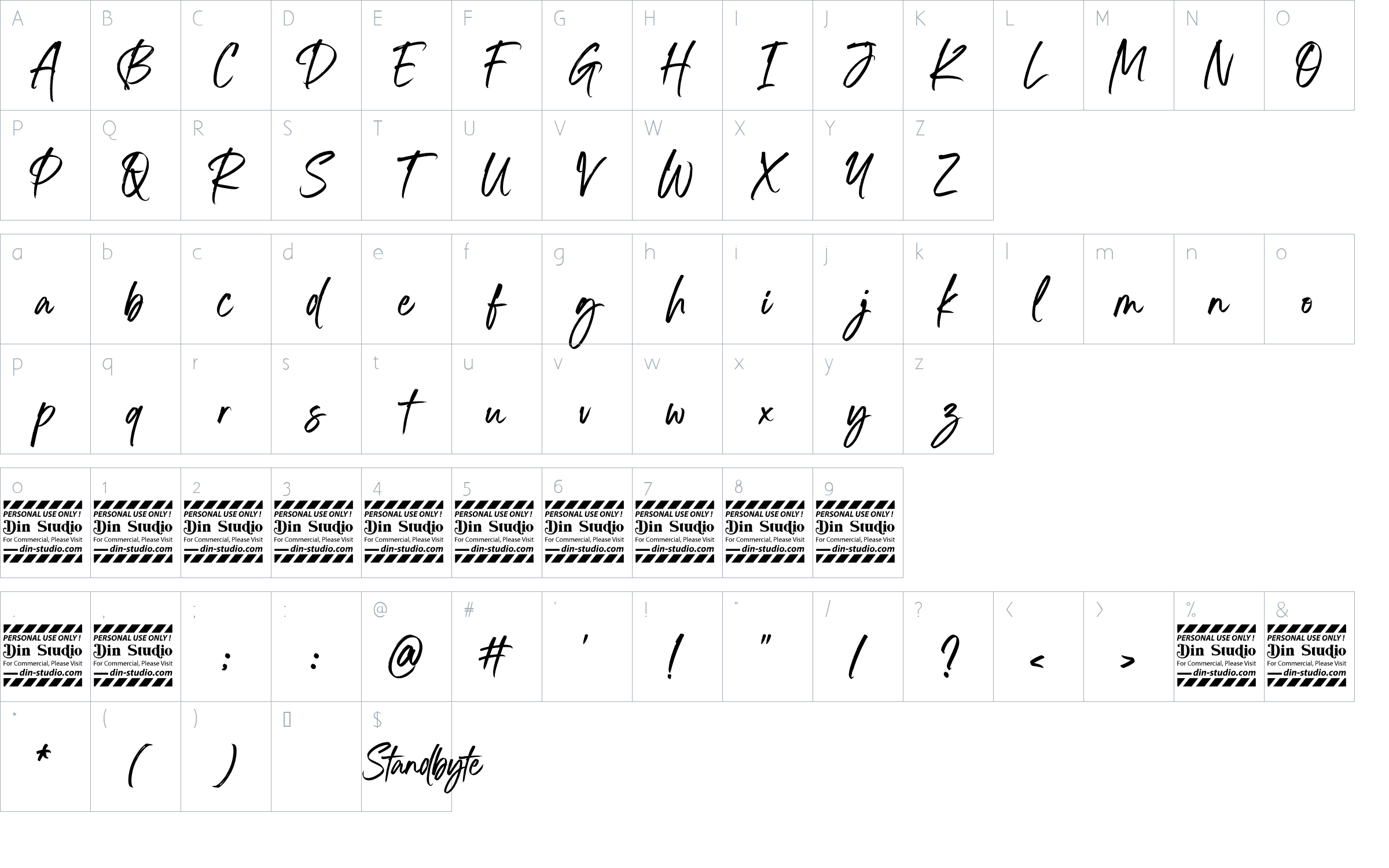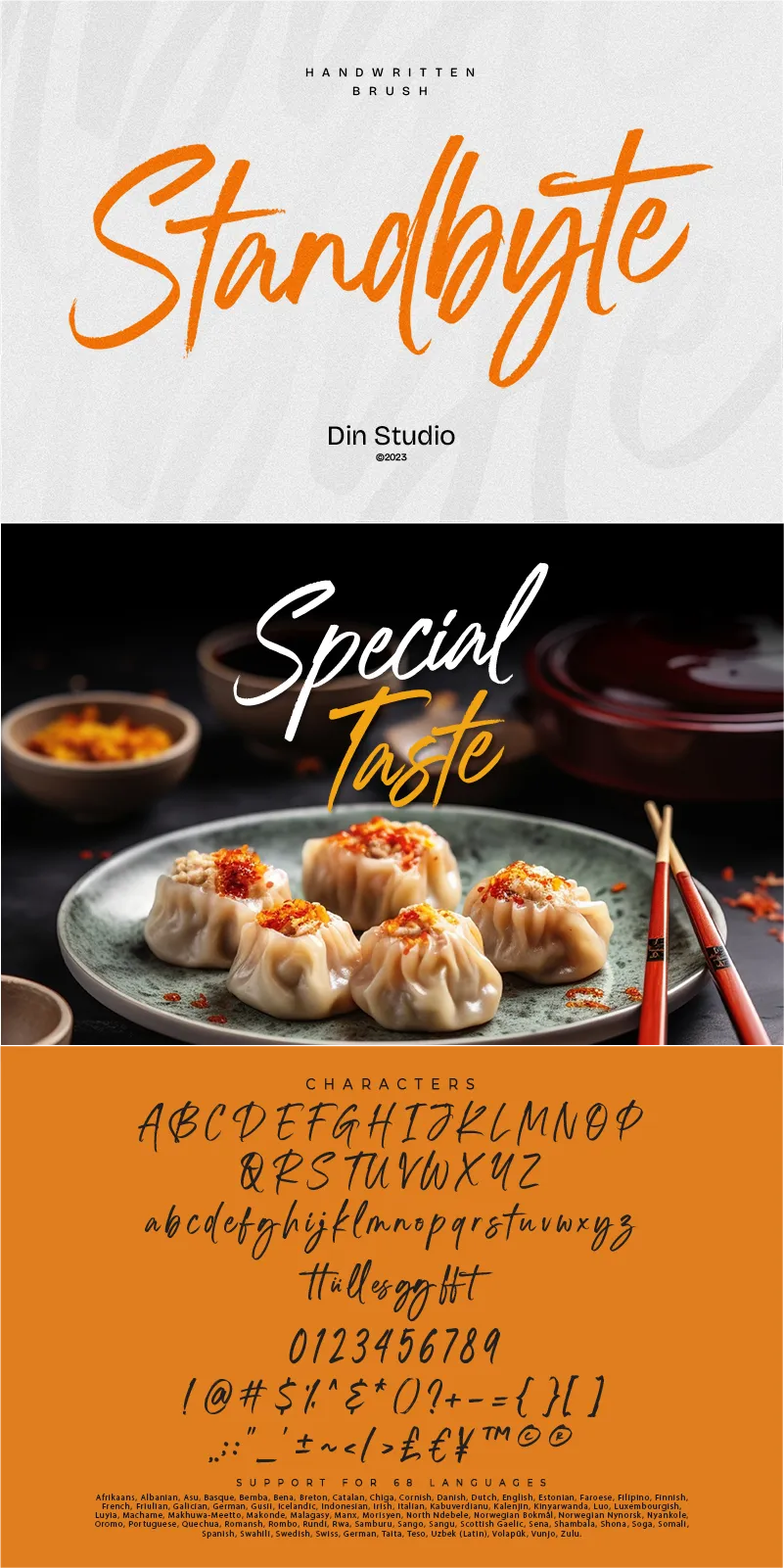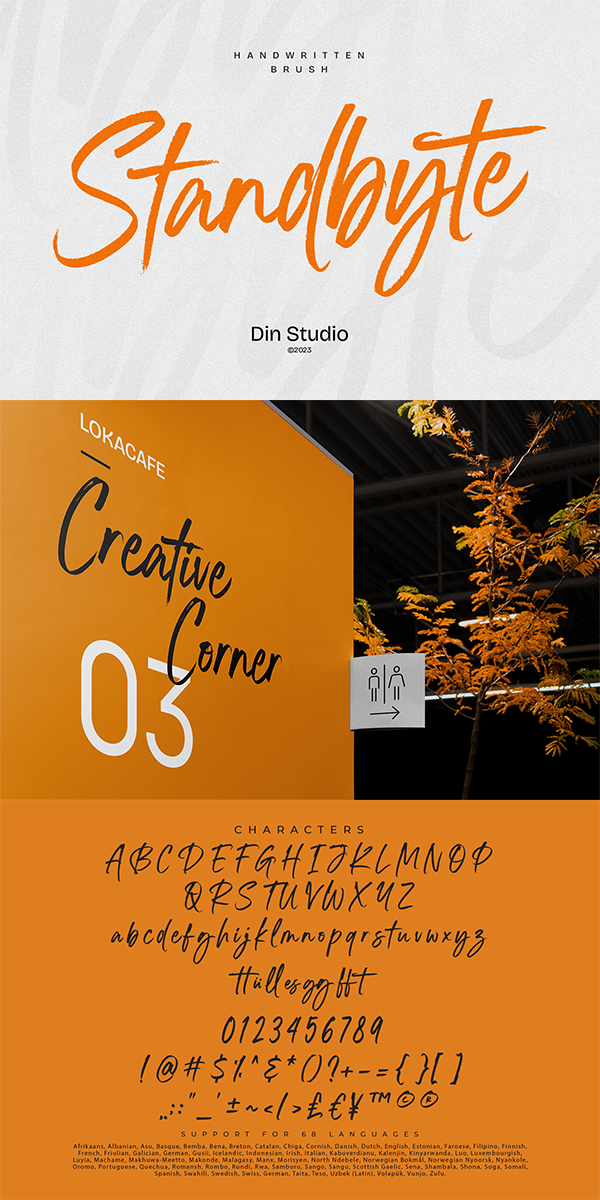
Standbyte Font
About Standbyte
Standbyte is an exquisite script font that beautifully captures the essence of cursive handwriting with delicate brush details. This typeface combines the fluidity of handwritten script with the artistic touch of brush strokes, resulting in a captivating and elegant design. Standbyte’s flowing letterforms emulate the natural movement of cursive handwriting, giving it a sense of authenticity and warmth. The brush details add a touch of artistic flair, creating subtle variations in stroke width that infuse the font with a handcrafted charm. Its flowing, interconnected letters lend themselves well to creating seamless and eye-catching appearance. Because of its legibility you can use this font in a variation of text sizes. Enjoy the available features here.
Standbyte fits in headlines, logos, posters, flyers, invitations, greeting cards, branding materials, print media, editorial layouts, website headers, and many more. Find out more ways to use this font by taking a look at the font preview.